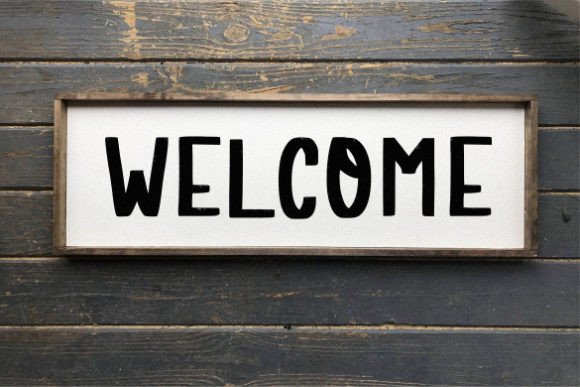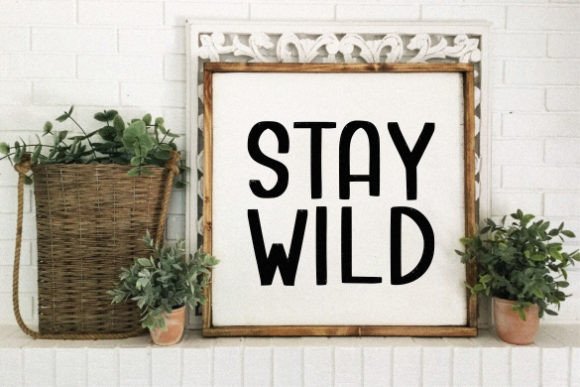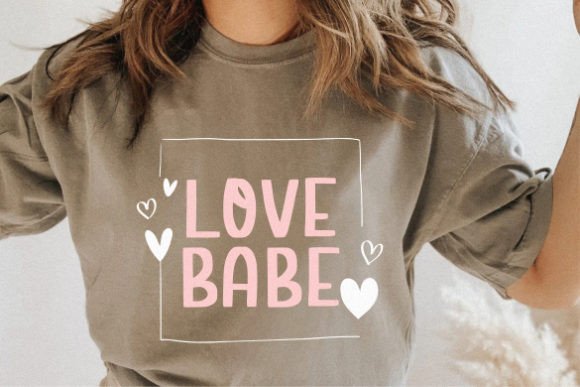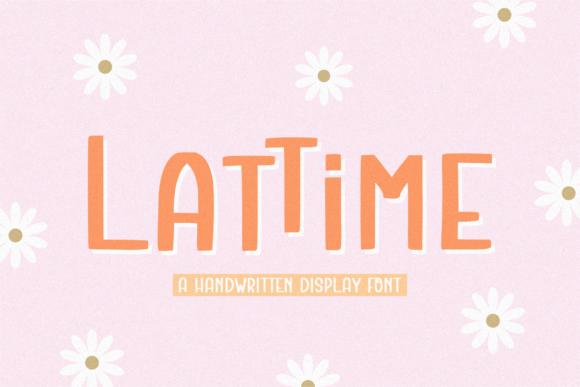
Introduction to Lattime Font
Lattime is a fun and friendly display font.
Key Features of Lattime Font
Why Choose Lattime Font?
Lattime Font offers exceptional quality and versatility, making it a valuable addition to your design toolkit. Whether you’re creating for personal projects or commercial use, Lattime Font delivers professional results.